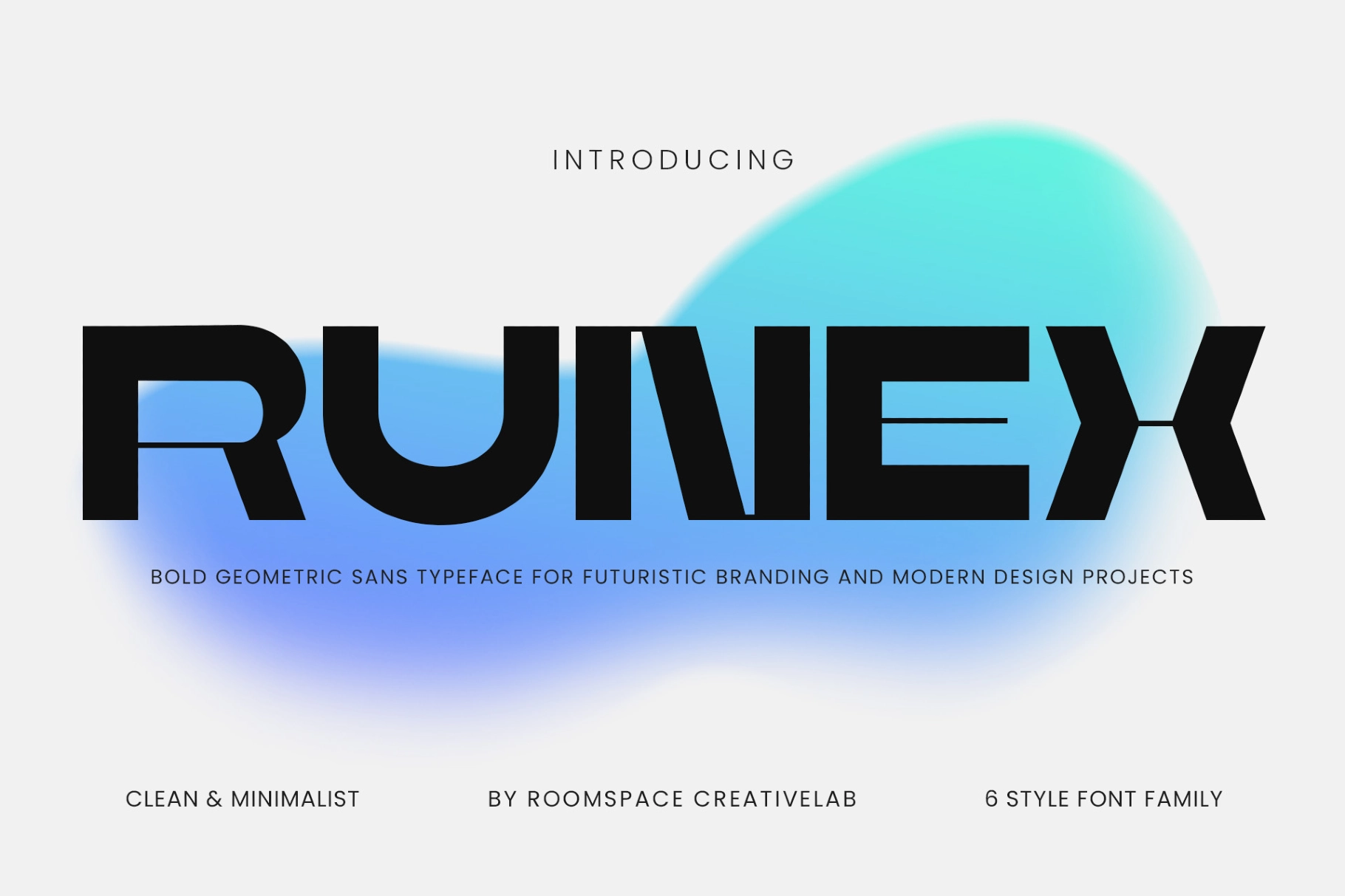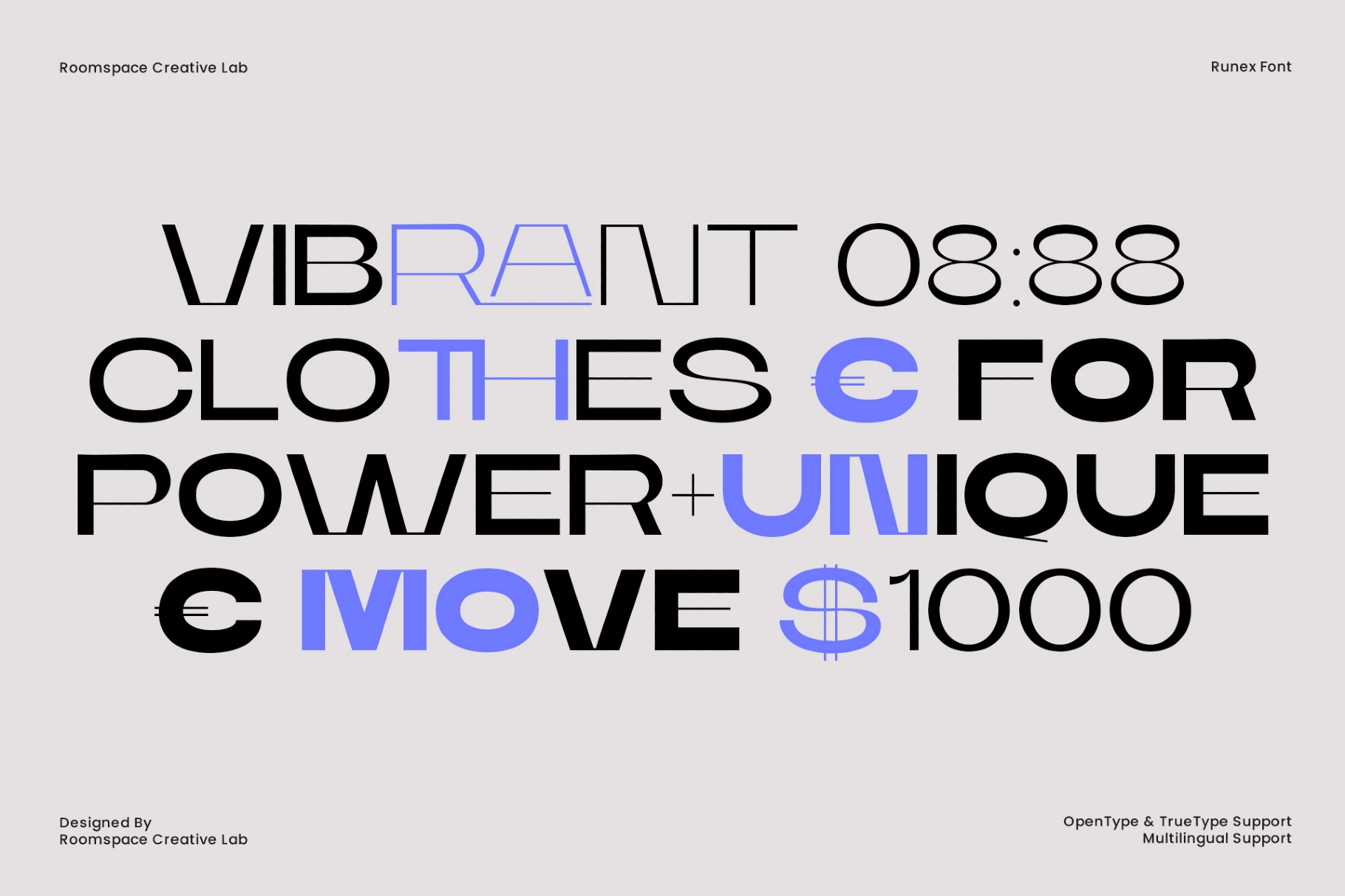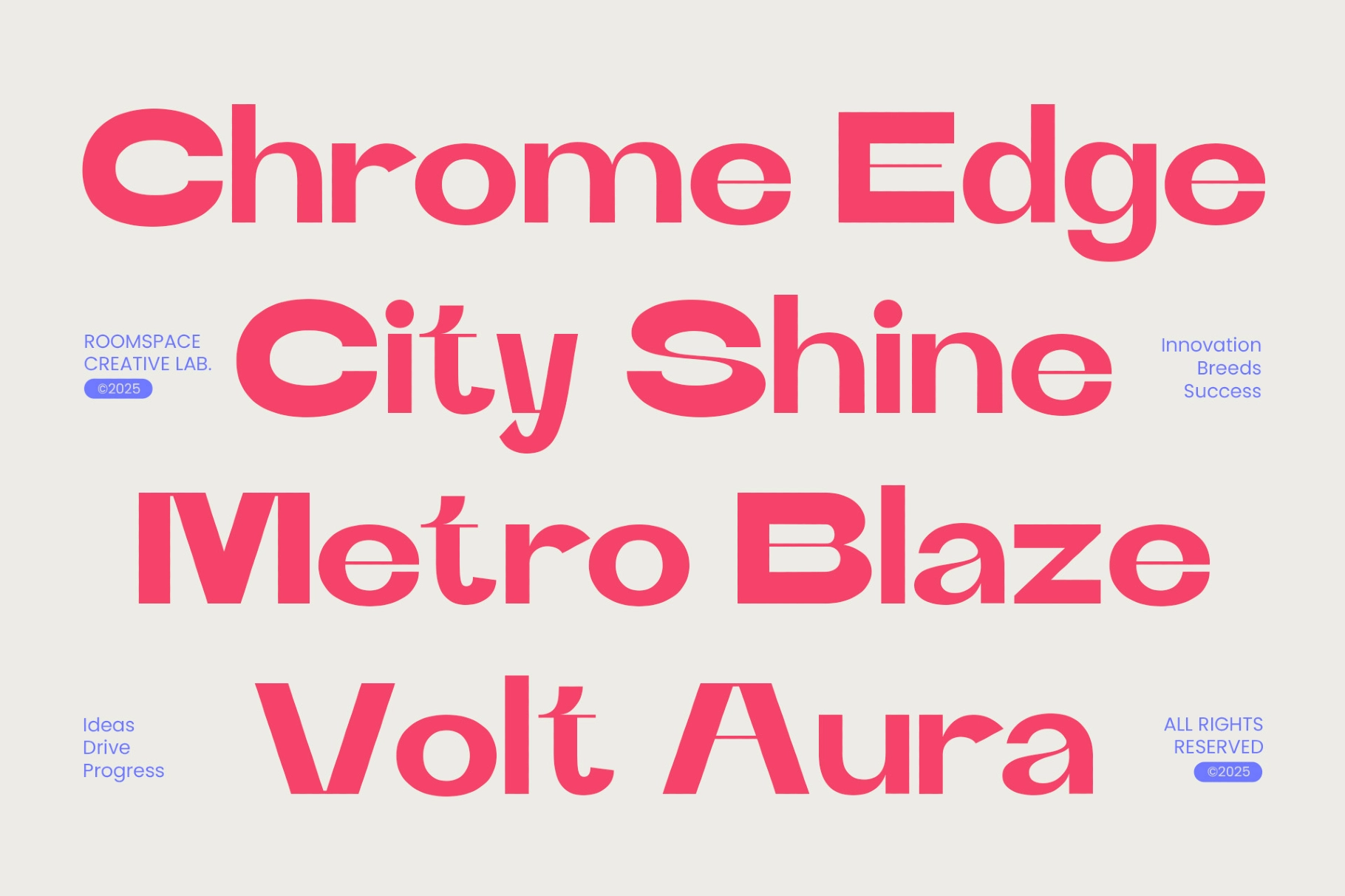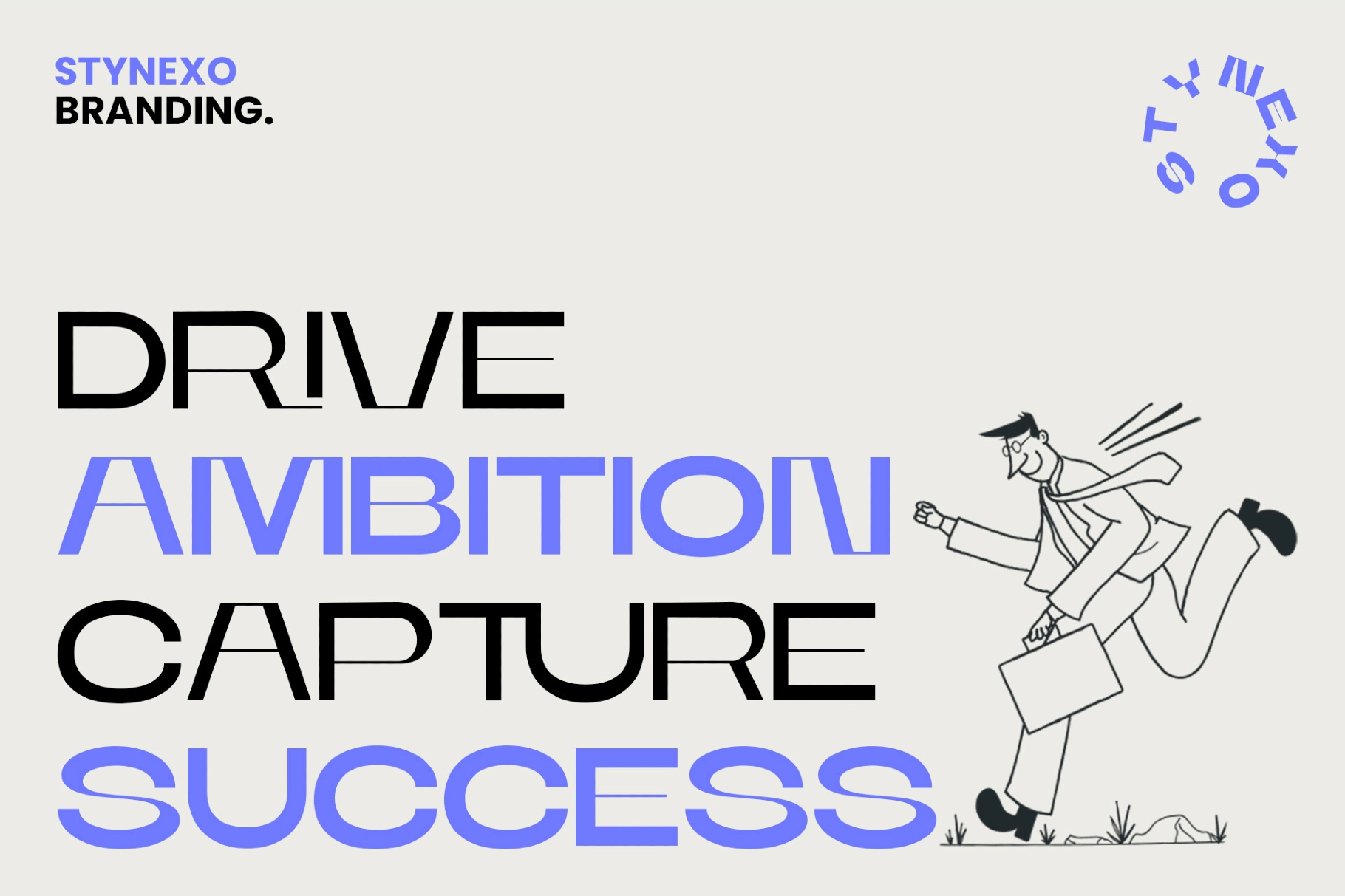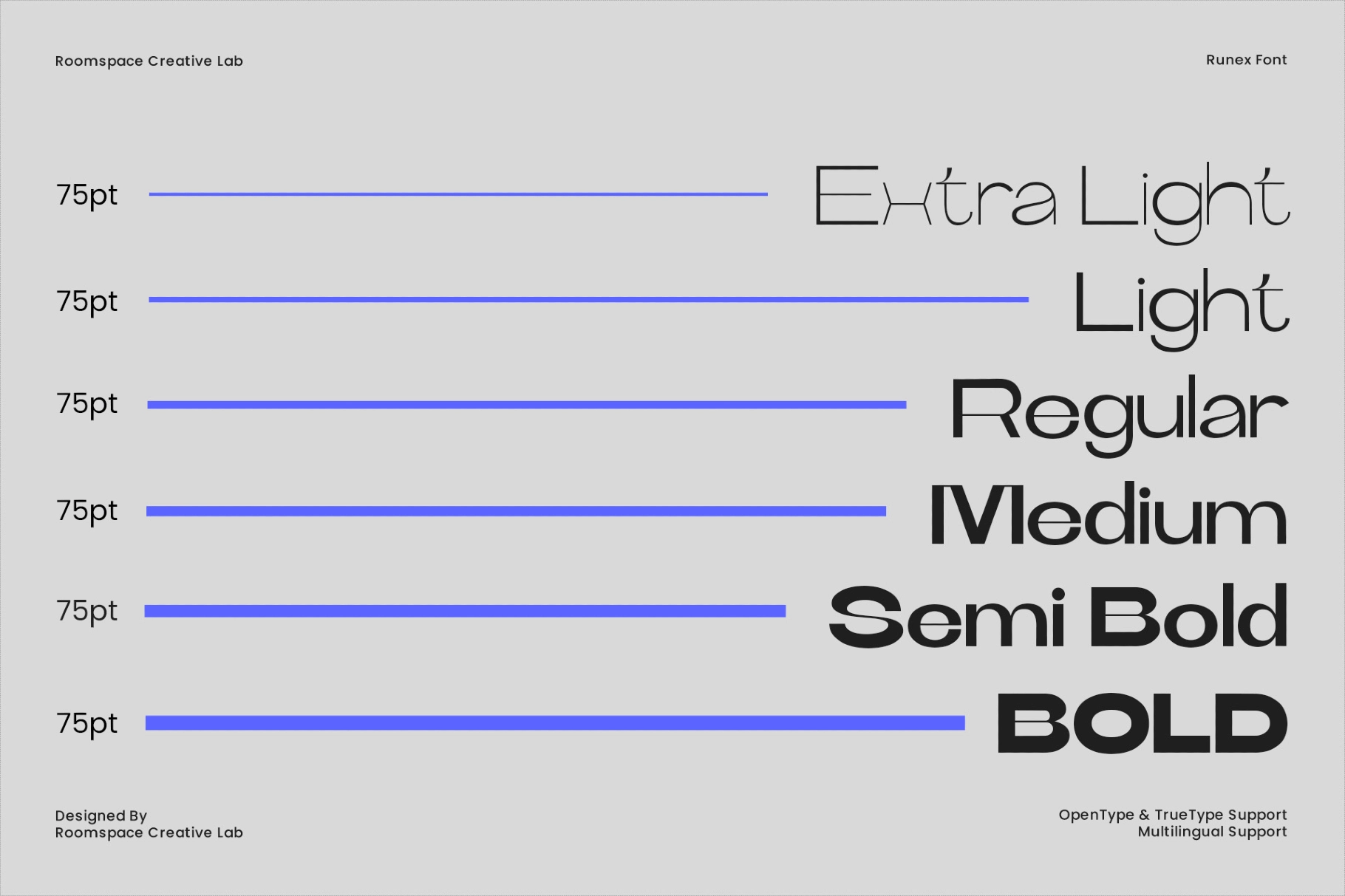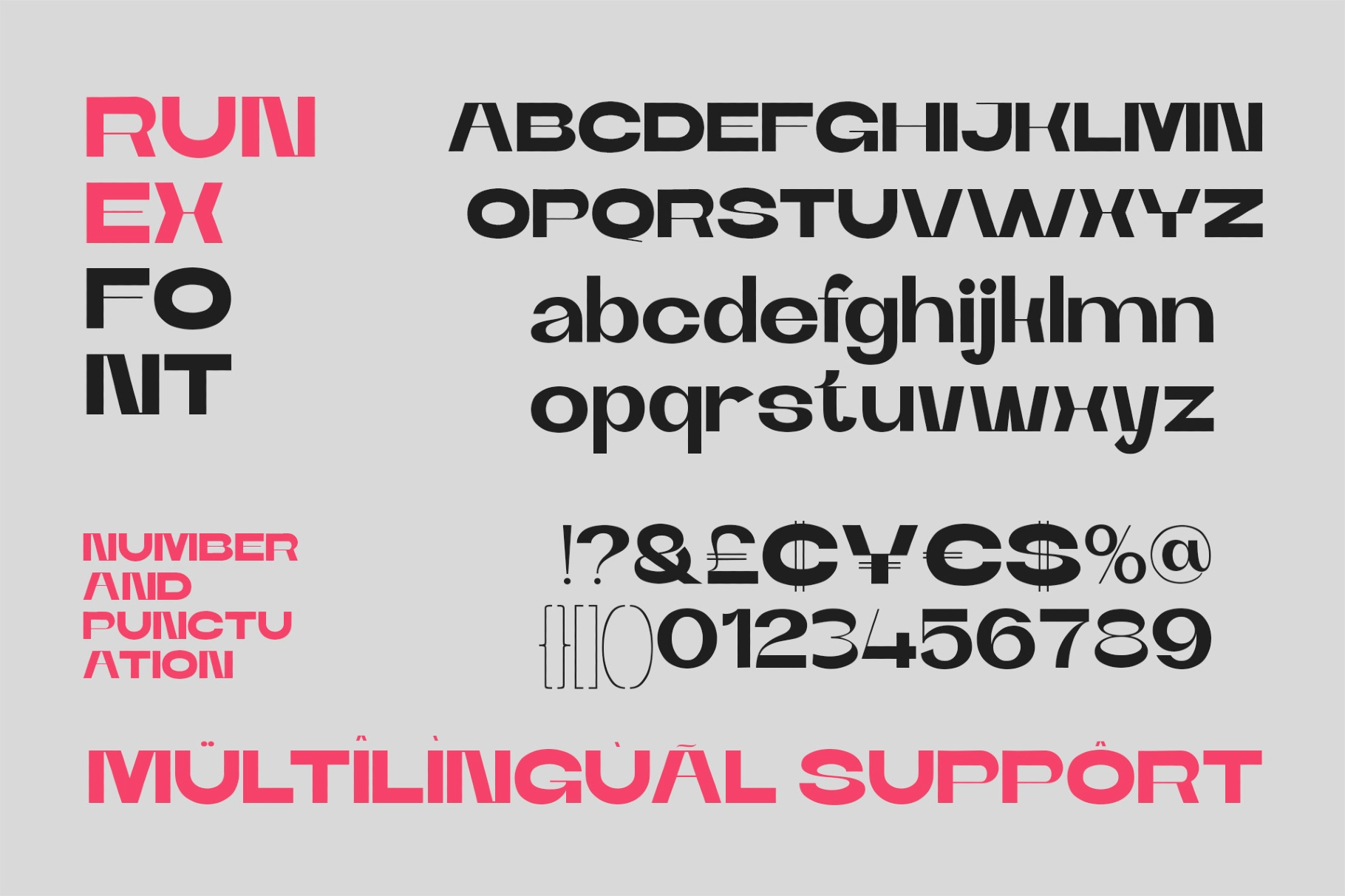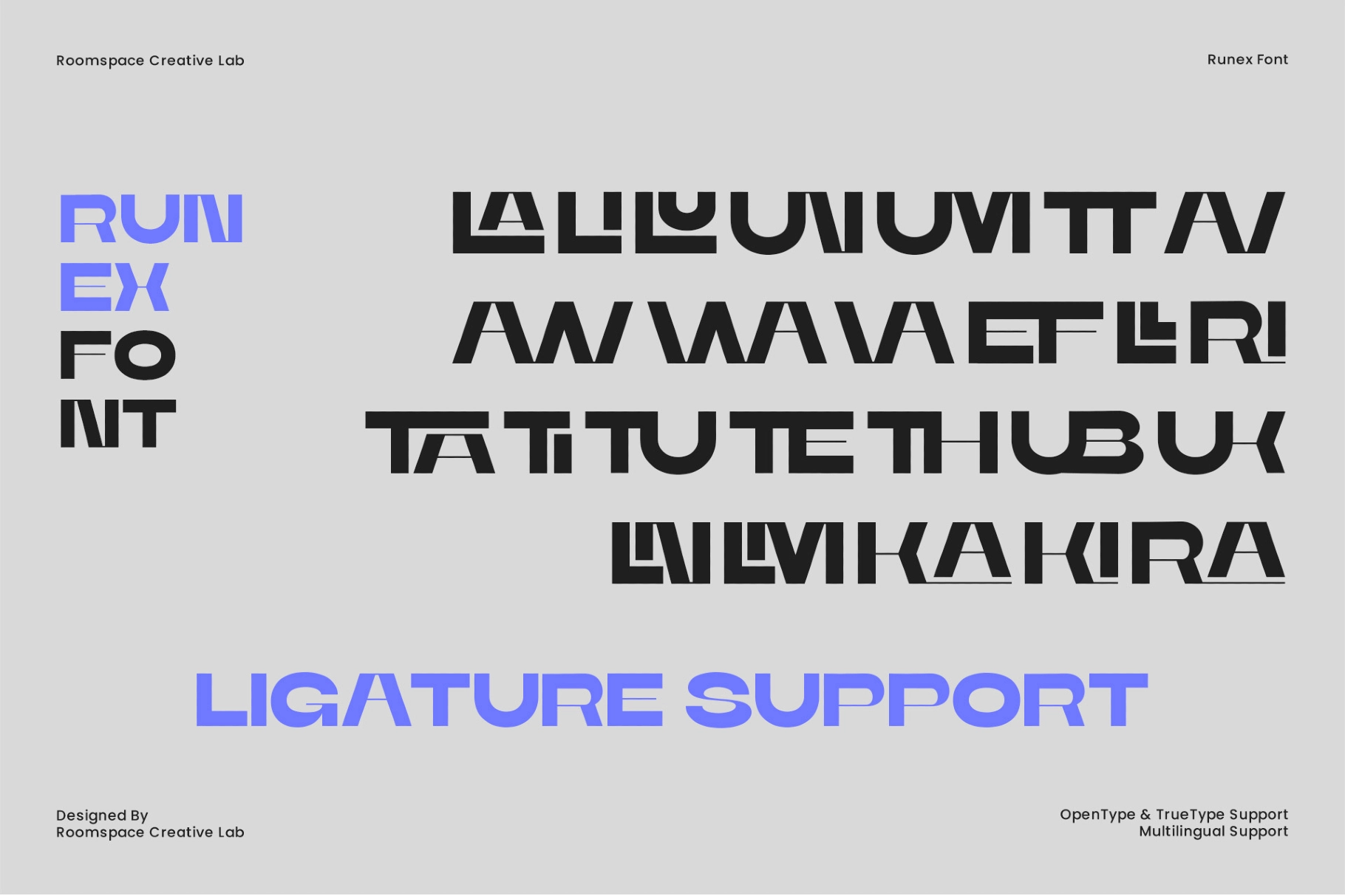
Runex — Bold Geometric Sans Serif Font Family
Runex is a bold sans serif font family built on wide, even-stroked geometry with one deliberate structural trick: horizontal cuts run through the midpoints of certain characters — the C, E, S, and currency symbols — creating a slotted detail that reads as engineered rather than decorative. The construction sits in the same territory as Helvetica Neue Extended, but the incised marks push it into something closer to corporate sci-fi, the kind of lettering you'd expect on aerospace hardware or a concept-car nameplate.
Six weights — from Extra Light to Bold — give the family genuine range. The lighter cuts work for editorial subheads and UI labels where structure without mass is the goal; the heavier weights go loud on poster titles, sportswear identities, and large-format campaign headers. Ligature pairs in the uppercase add compositional options for short logo-scale settings. Use Runex for tech branding, streetwear, sports campaigns, startup identities, app interfaces, and event graphics where the type needs to hold its ground.
- 6 styles: Extra Light, Light, Regular, Medium, SemiBold, Bold;
- Uppercase & lowercase;
- Numerals, punctuation & symbols;
- Ligature support;